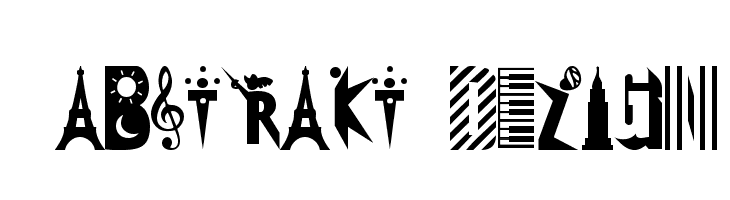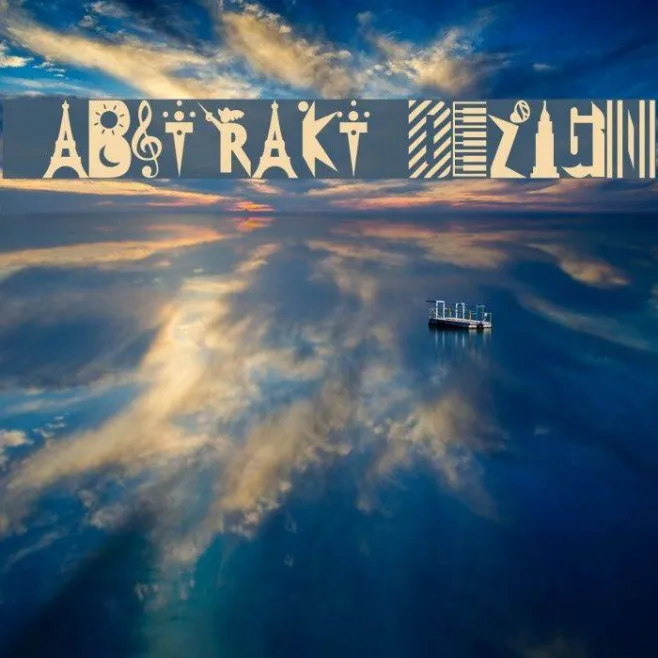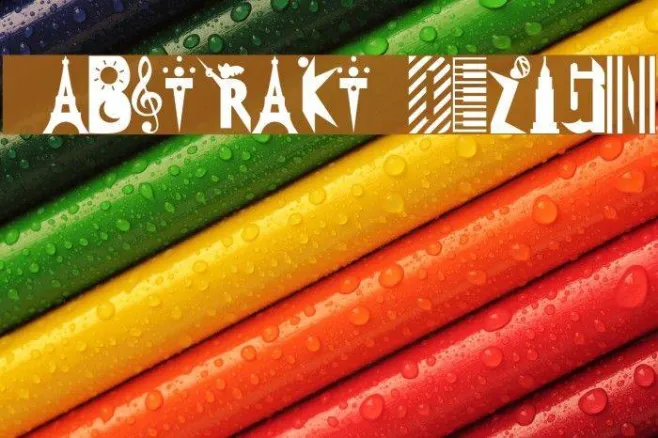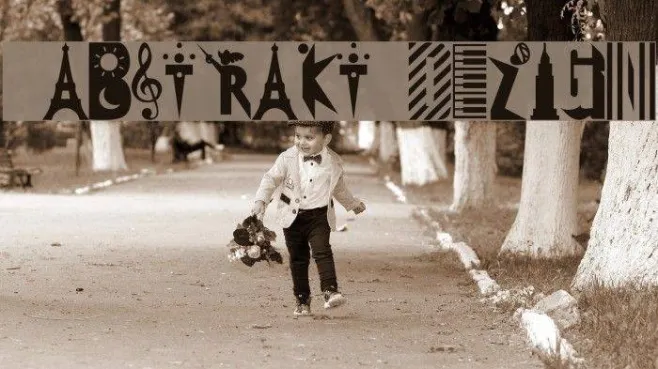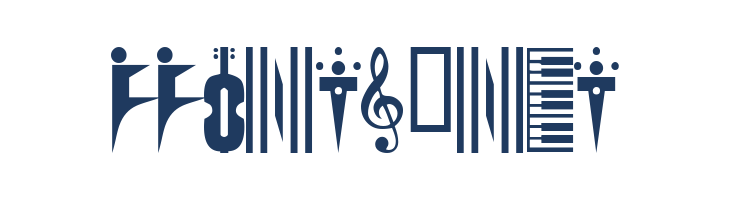
101! Abstrakt DeZign Font
This font is a highly creative and abstract design, featuring a diverse range of artistic elements integrated into each character. Each letter is uniquely styled, incorporating various motifs such as musical notes, architectural elements, and abstract shapes. The design is bold and eye-catching, with a strong emphasis on visual impact and artistic expression. The font's playful and imaginative nature makes it stand out, offering a unique blend of creativity and functionality. It is ideal for projects that require a distinctive and artistic touch, capturing attention with its unconventional and decorative style.
A bold, abstract font with artistic and creative elements in each character.
- Proposed Projects: Ideal for creative projects, posters, album covers, and artistic branding that require a unique and eye-catching typeface.
- Use Case: Headlines, Logos, Artistic projects